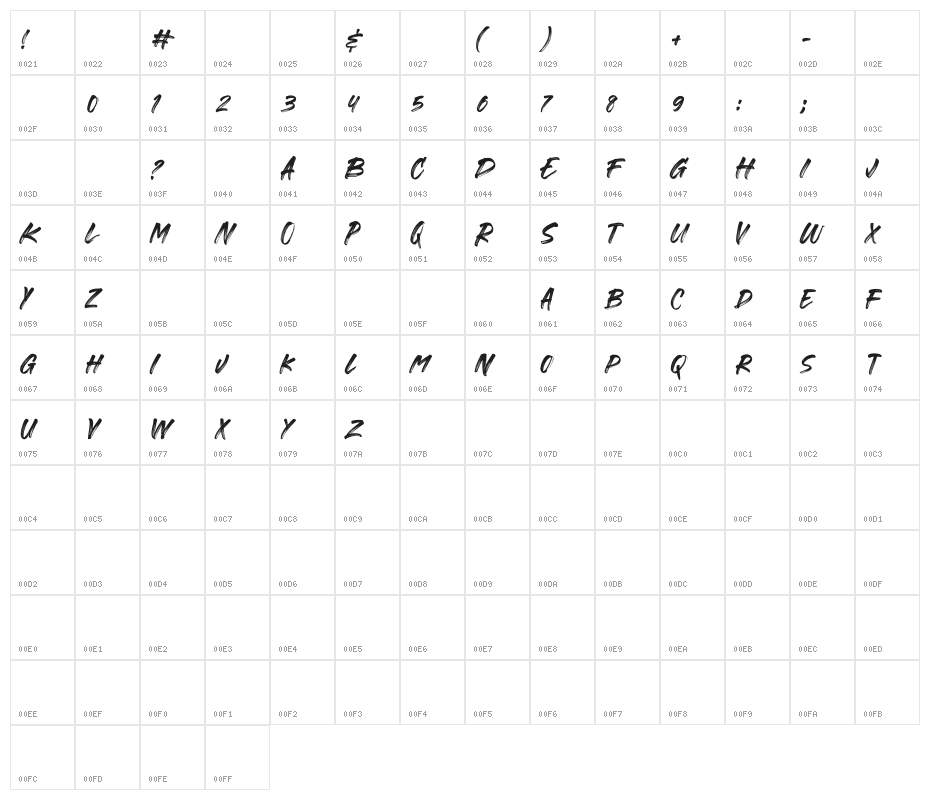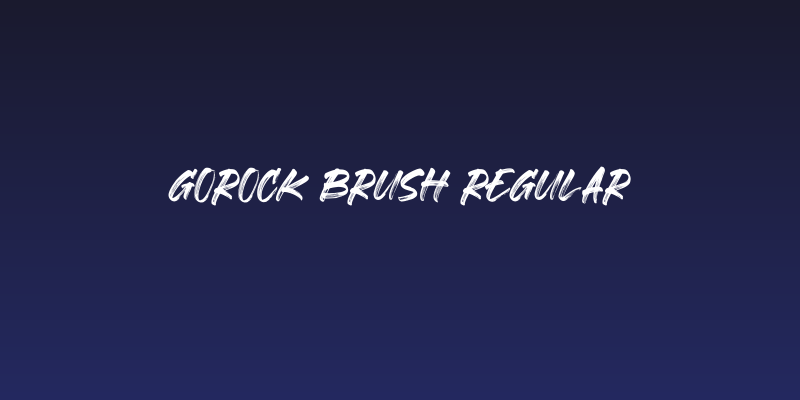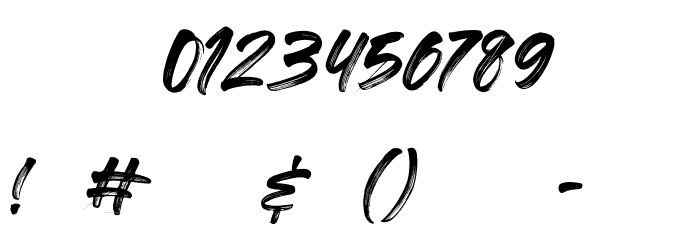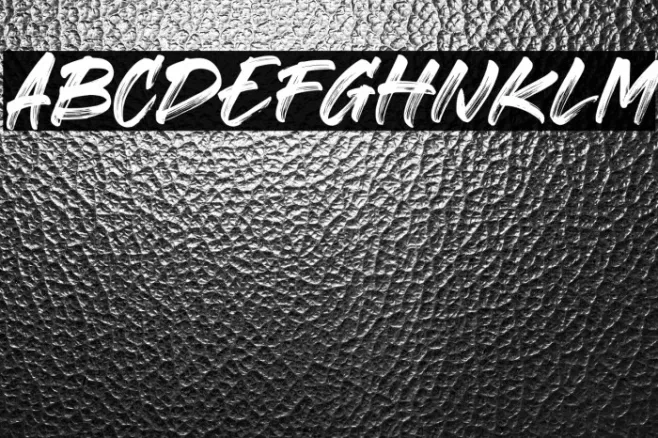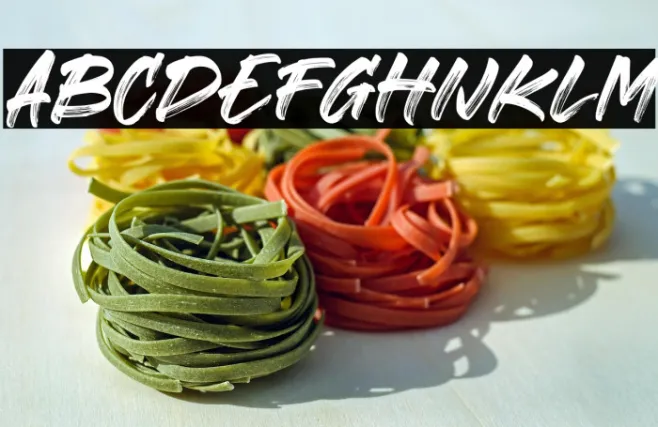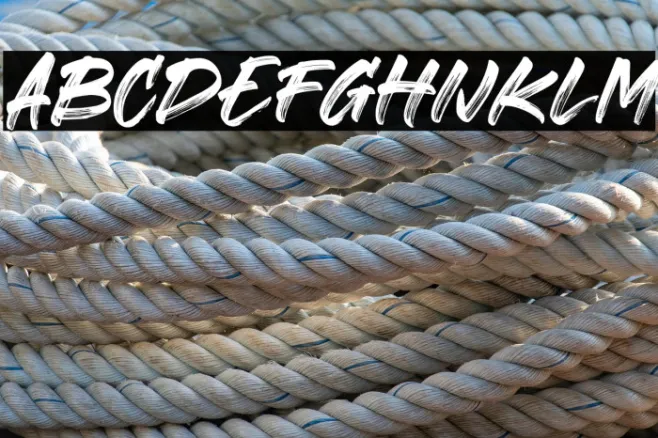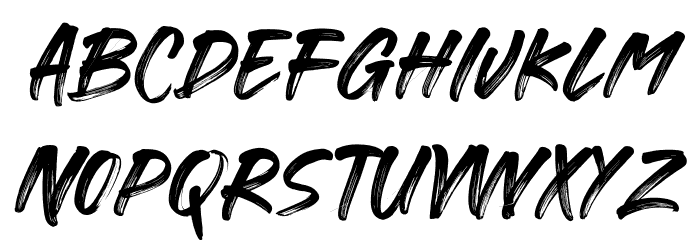
Gorock Brush Regular Font
Gorock Brush Regular Description
This font features a dynamic and energetic brush style, characterized by its bold and expressive strokes. The letters have a hand-painted appearance, with varying thicknesses that create a sense of movement and spontaneity. The uppercase and lowercase letters maintain a consistent style, with a slightly slanted orientation that adds to the casual and artistic feel. The numbers and special characters are equally expressive, complementing the overall aesthetic. This font is perfect for projects that require a personal touch or a creative flair.